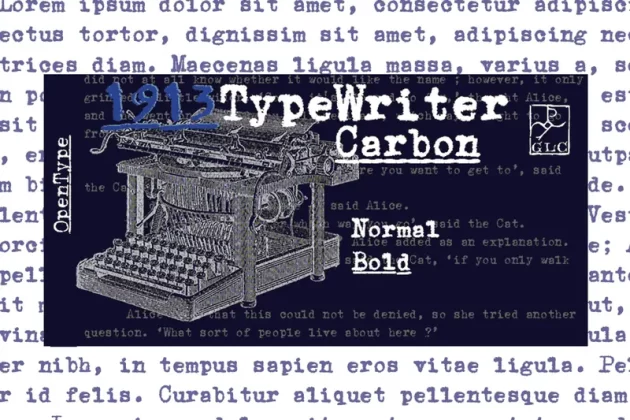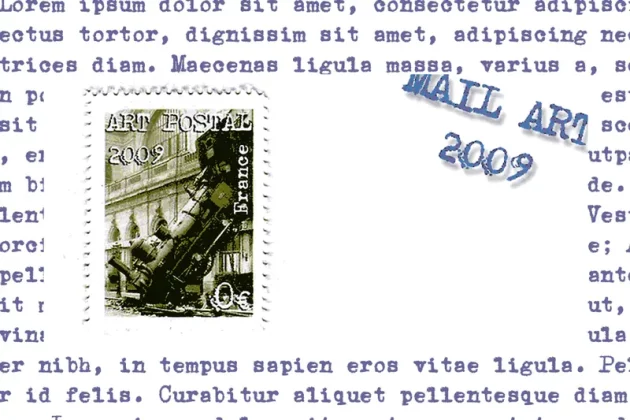
About 1913 Typewriter Carbon Set Font
1913 Typewriter Carbon is the bold version of GLC foundry’s “1913 Typewriter”. It is available in two styles: Normal, and Underlined (Bold).
It is a complete alphabetic font.
It can be used as variously as web-site titles, posters design or books editing.
It may be preferable, if possible, when printing, to choose a pale color – dark grey instead of heavy black, for example – to give a good appearance, just like the real one, and still benefit from the full details. With inkjet printers, it may be used the economic or draft option with a good result too.
The old typewriter characters size is 11 or 12 points, but this font supports easily enlargement.